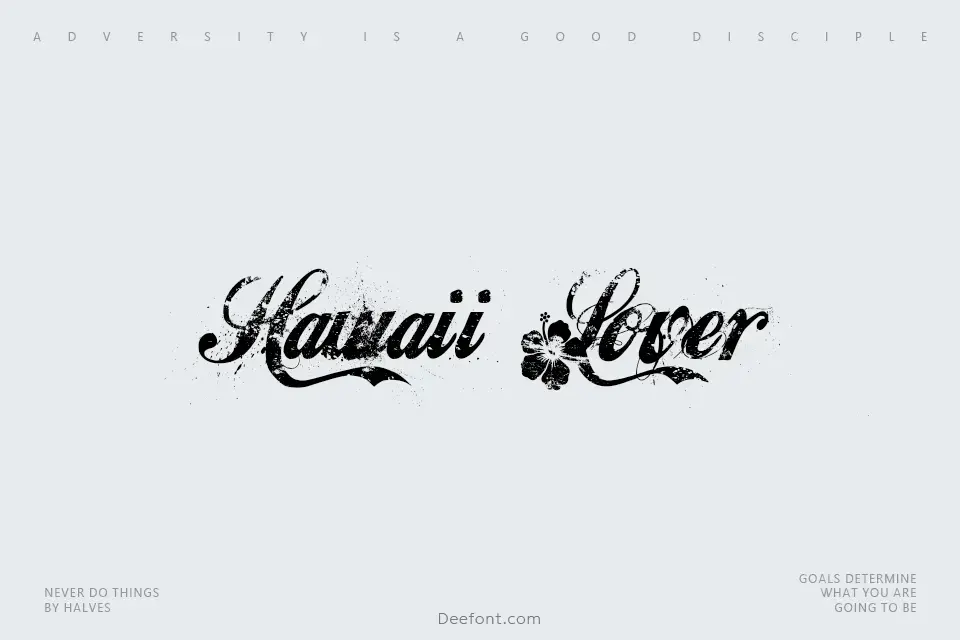
Hawaii Lover Font
Hawaii Lover is a distinctive tropical script font characterized by flowing, organic letterforms with grunge textures and hibiscus-inspired embellishments. This display typeface captures the essence of Hawaiian beaches with its natural, hand-drawn aesthetic. The font features 93 carefully crafted characters, combining playful curves with slightly distressed strokes to evoke a relaxed island atmosphere. Ideal for vacation posters, beach-themed invitations, tropical logos, festive event graphics, and decorative titles, Hawaii Lover brings authentic aloha spirit to creative projects while maintaining excellent legibility for both large display applications and medium-sized headlines.